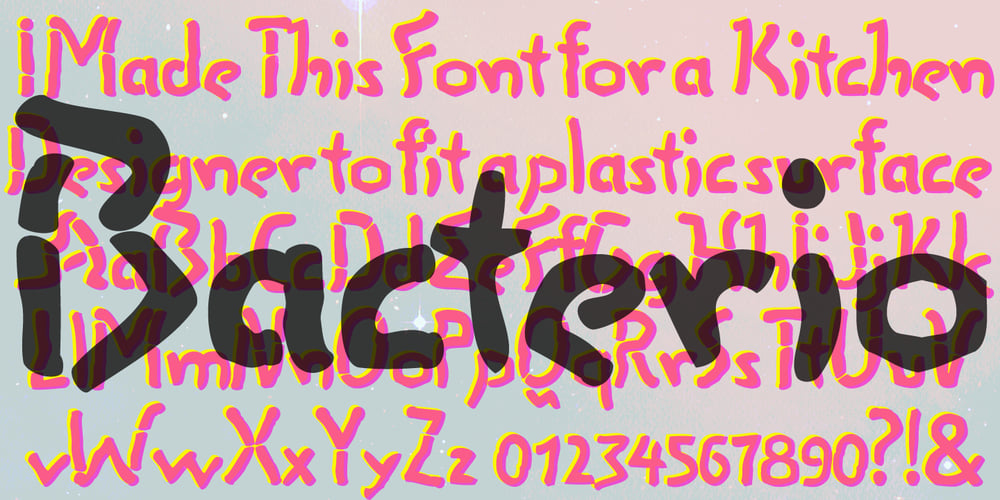
Bacterio
Bacterio font
Bacterio Font Family was designed by Gert Wiescher and published by Wiescher Design. Bacterio contains 1 styles and family package options. Bacterio is a typeface I designed for this hulk of a friend of mine who is a kitchen designer. He is huge but has a very delicate feeling for form. One day he said he was trying out something new and if I couldn’t make a font for him. Then he showed me the surface design, a hard-plastic covered multilayered wood. The surface design was called “Bacteria” and it looked just like that, only in multicolors. Well here is “Bacterio” the font that looks just like that surface of my hulky friend. Yours very design infected Gert Wiescher